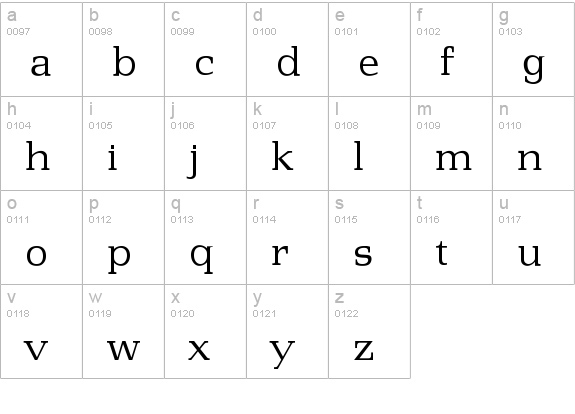
Penthouse-Light is a refined, elegant variant in the Penthouse typeface family \xE2\x80\x94 well suited to elegant body text, refined sub-headings, and luxury branding.
Introducing Penthouse-Light font, a stunningly elegant typeface perfect for adding a touch of sophistication to any project. With its sleek lines and graceful curves, Penthouse-Light exudes a sense of modern luxury that is sure to captivate your audience. This font is designed with versatility in mind, making it suitable for a wide range of applications. Whether you're designing a high-end fashion magazine, creating a stylish logo for your business, or crafting an elegant wedding invitation, Penthouse-Light will effortlessly elevate your design to new heights. But what sets Penthouse-Light font apart is not just its exceptional aesthetics, but also its accessibility. We are thrilled to announce that this font is available for free download exclusively at FontsMarket.com. Yes, you read that right – Penthouse-Light can be yours without spending a dime! Now, you can bring a touch of refined luxury to your projects without breaking the bank. Gone are the days of compromising on quality or settling for less. With Penthouse-Light font, you can have both style and savings. So, don't miss out on this incredible opportunity. Visit FontsMarket.com today and experience the seamless blend of elegance and affordability with Penthouse-Light font. Download it for free and unlock the endless possibilities of creating visually stunning designs that are sure to leave a lasting impression.